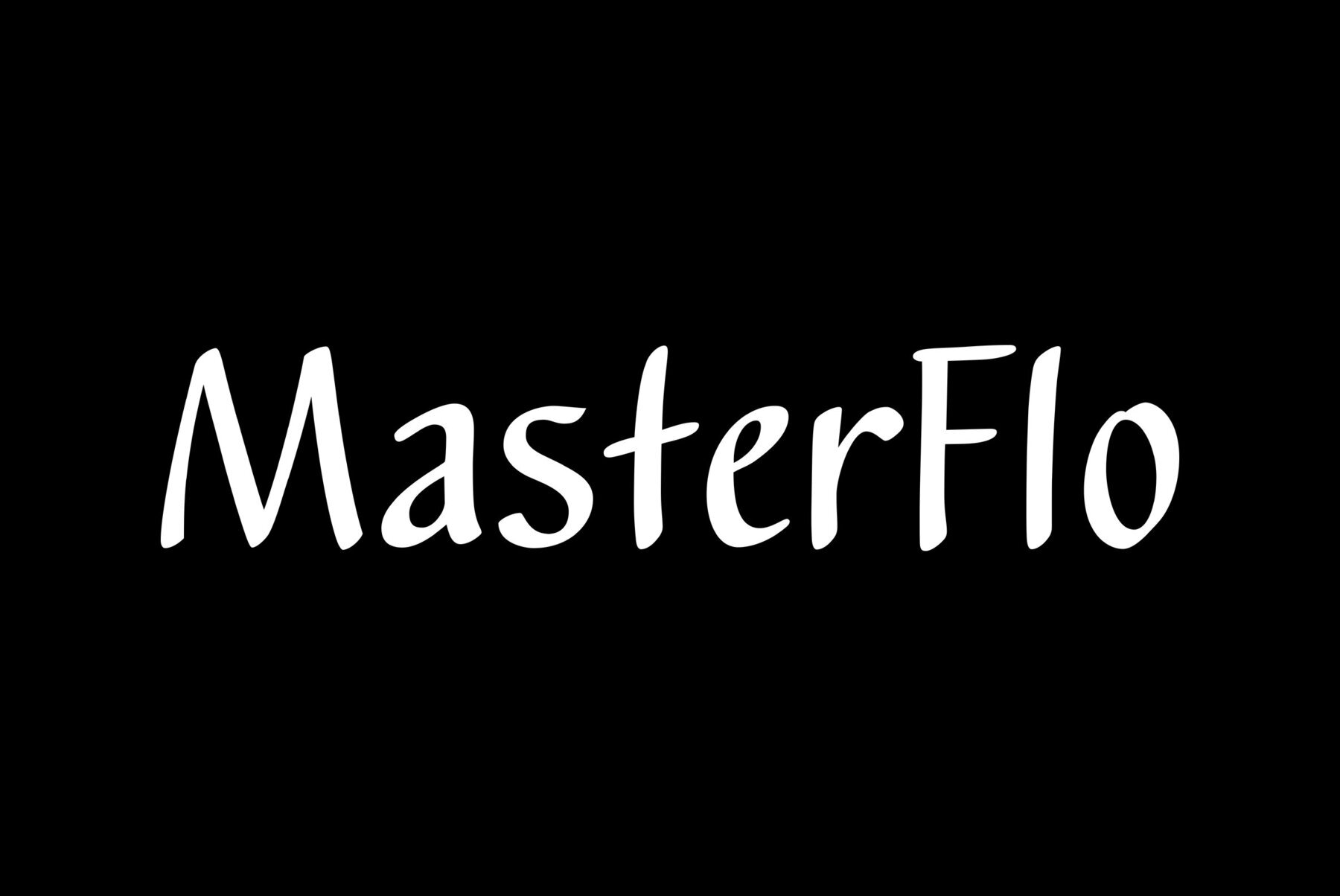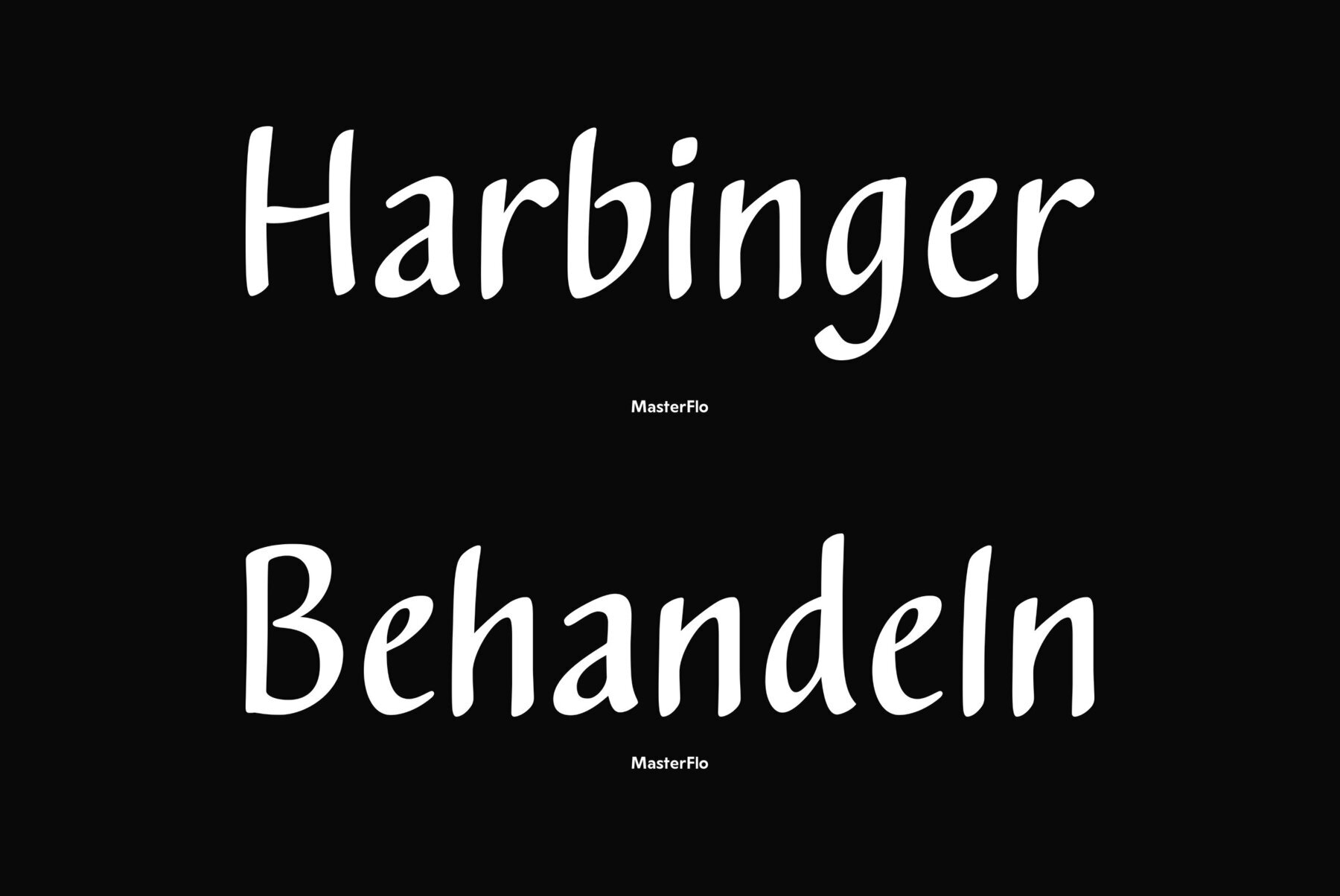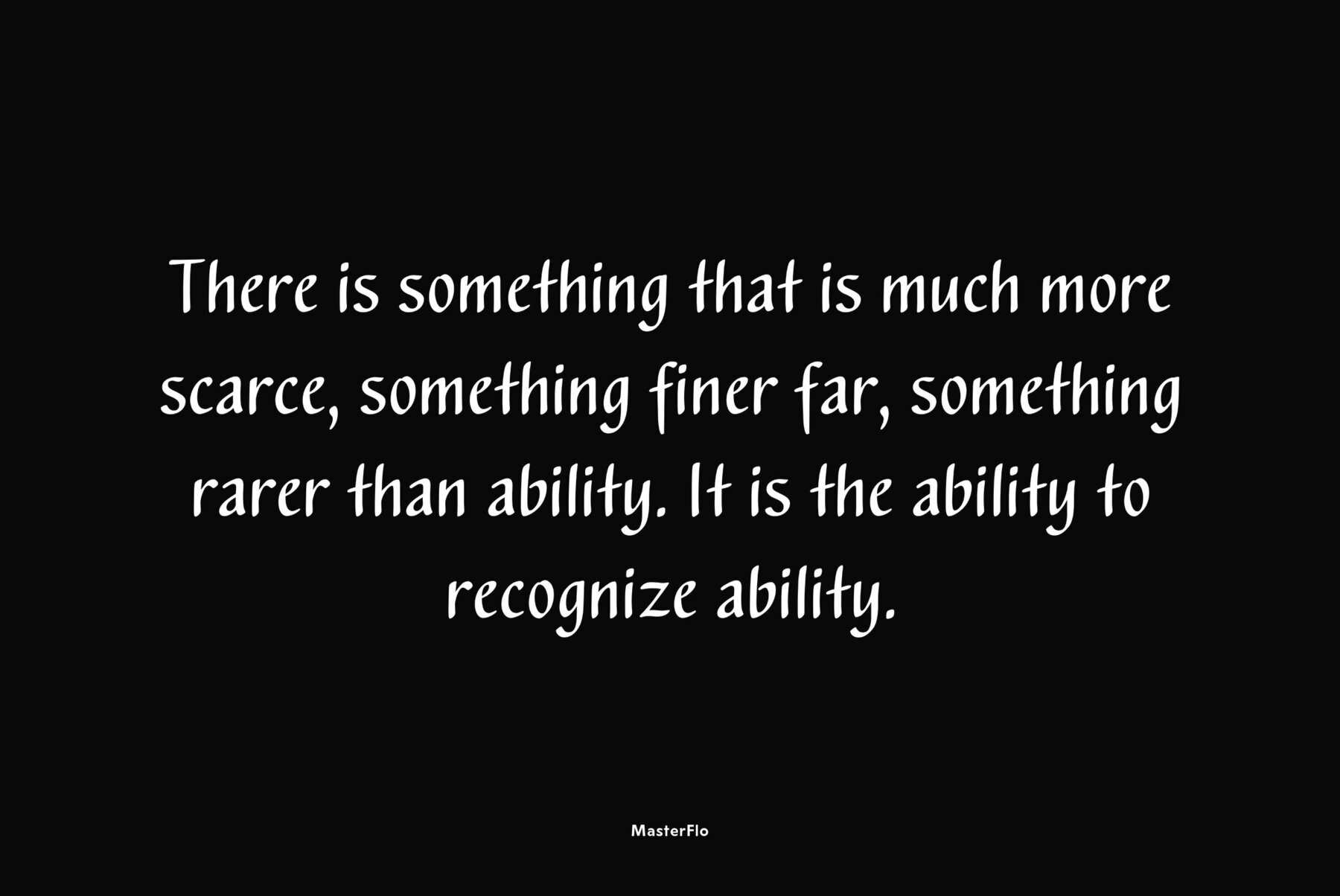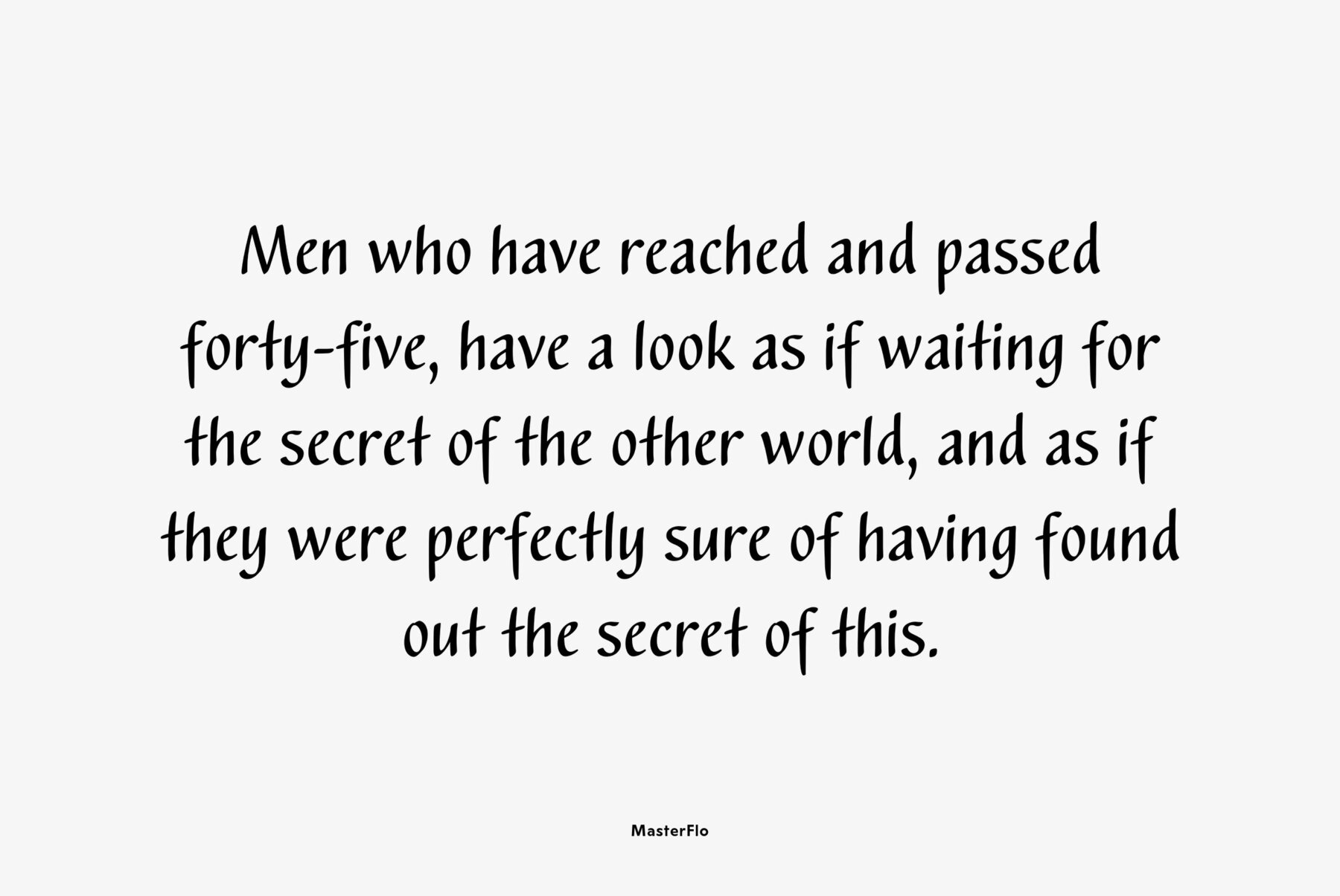
An original display typeface was designed by Natalia Vasilyeva for ParaType in 2007. It is freestyle script based on handwriting. The face inspired by flat-nib felted pen or brush calligraphy. For use in short texts and informal headlines.